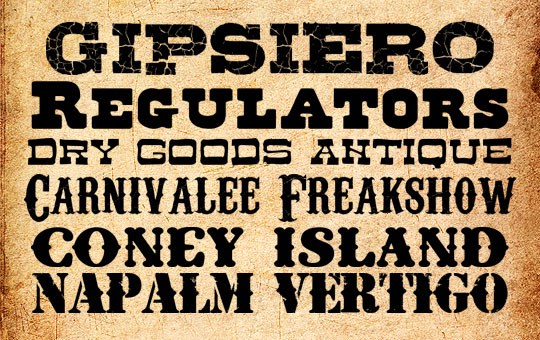
Free Fonts Originating from the Wild West
One of the most vivid phenomena in the history of the USA is the Wild West with its specific and distinct style, easily traced in many symbols of that time – from unique cowboy clothing to saloon interiors and to… original fonts on the Wanted posters. Today the fonts of the Wild West or Western fonts are still in common use in design industry for their originality and recognizability. Always straight and vertically aligned, these fonts feature solid lines often with outlined effect, specific serif decorations, and oblong shape of the glyphs. If you need to recreate the atmosphere of the U.S. Wild West through graphical means, there is no better was but to use one of the free Western fonts, offered below.